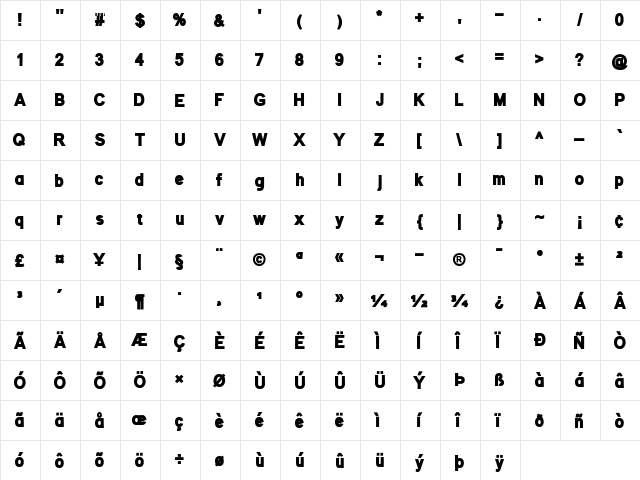
Stroud Regular
Design Context for Stroud Typeface
Stroud offers clean, dependable letterforms without strong stylistic allegiance, making it a practical choice for designers who need flexibility.
Pro Tip: Use Stroud in both headline and body roles to test its range before committing to a single application.